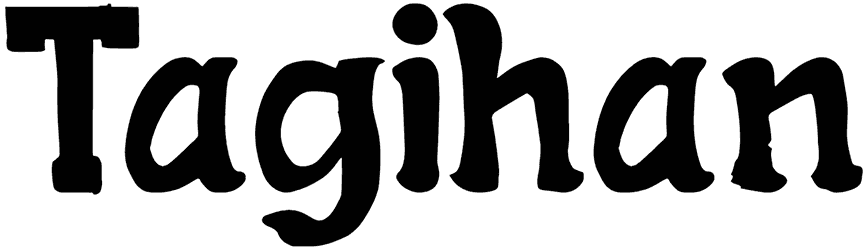
Tagihan Font
If you are in love with designs in the classic but modern face, Tagihan is an interesting one. This handwritten font has bold, decorated serif letters and a playful mood. Let’s test this fancy font for your intended designs, such as postcards, game screens, posters, or the like, and make delightful results.
Introducing our new Font : Tagihan is a modern display font, good use for Logo Design, pamphlets, Billboard, Flyer, and many more. support multi language